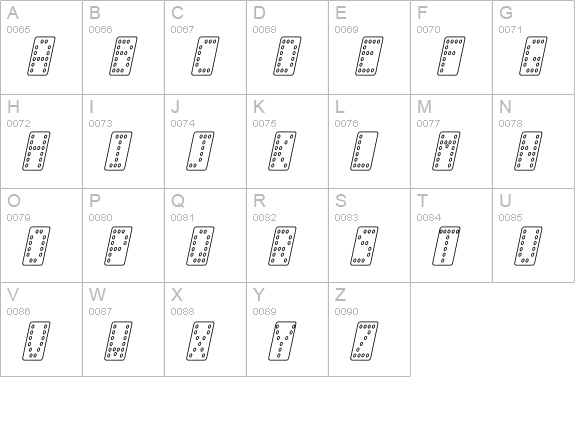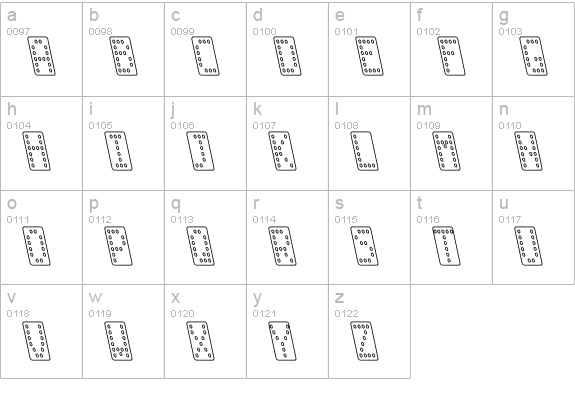
Domino Smal Kursiv Omrids Font is a sleek and elegant typeface designed for adding a touch of sophistication to your projects. The thin, italicized outlines of each character exude a sense of modernity and style, making it perfect for a wide range of design applications. This unique font is not only visually appealing but also highly versatile, allowing you to create stunning designs with ease. The best part is that Domino Smal Kursiv Omrids Font is completely free to download at FontsMarket.com. Whether you're working on a branding project, website design, or any other creative endeavor, this font will surely elevate your work to the next level. Don't miss out on this amazing opportunity to enhance your designs with this beautiful and free font!